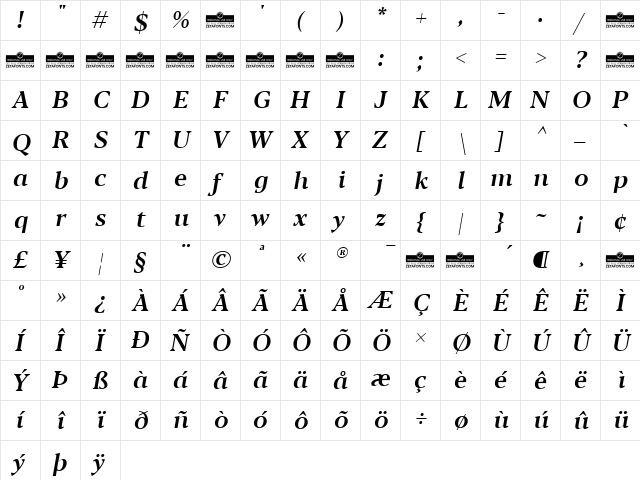
Blacker Text Medium Italic
Design Context for Blacker Text Typeface
Blacker Text is a composed and adaptable typeface that performs quietly and consistently across a wide range of design contexts. The dynamic lean of this cut emphasises speed and emphasis in any layout.
Pro Tip: Use Blacker Text for emphasis, pull quotes, and subheadings where its slanted energy can add rhythm to the layout.